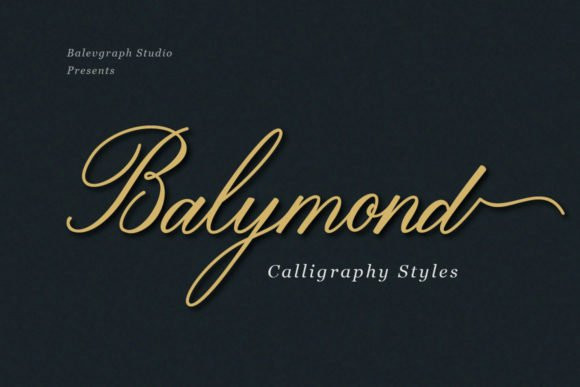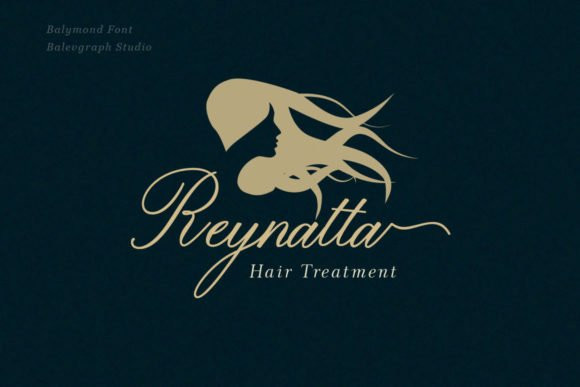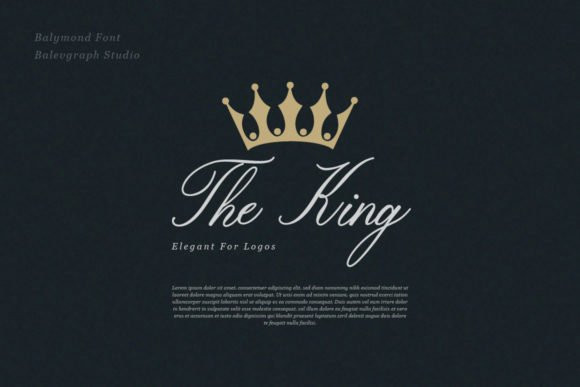
Balymond Font
Balymond FontBalymond is a dazzling script font. This font is neatly crafted and highly detailed. Whatever the topic, this font will be a wonderful asset to your font library, as it has the potential to enhance any creation.